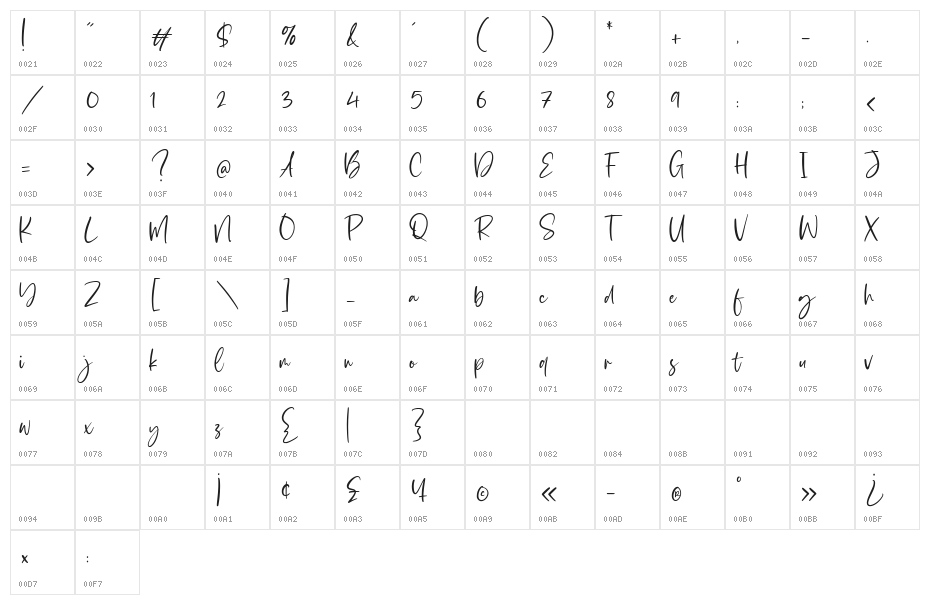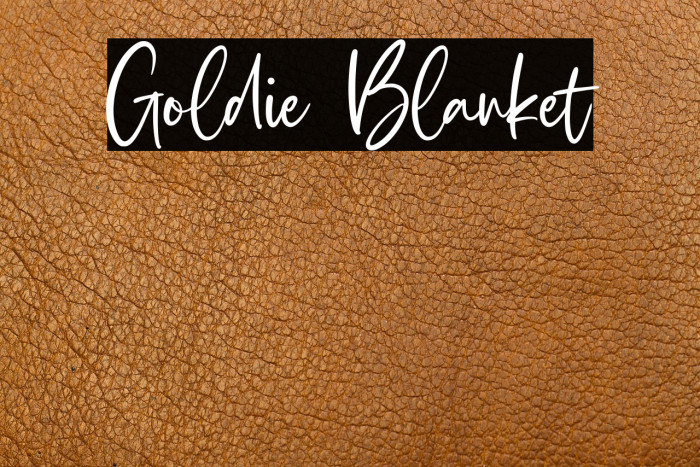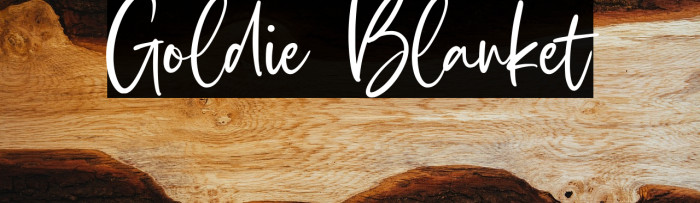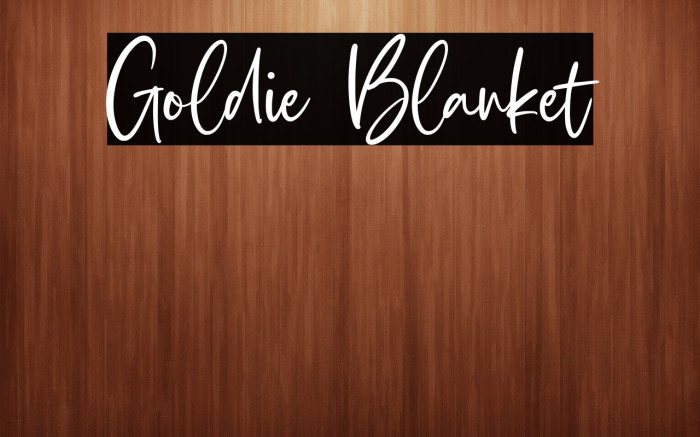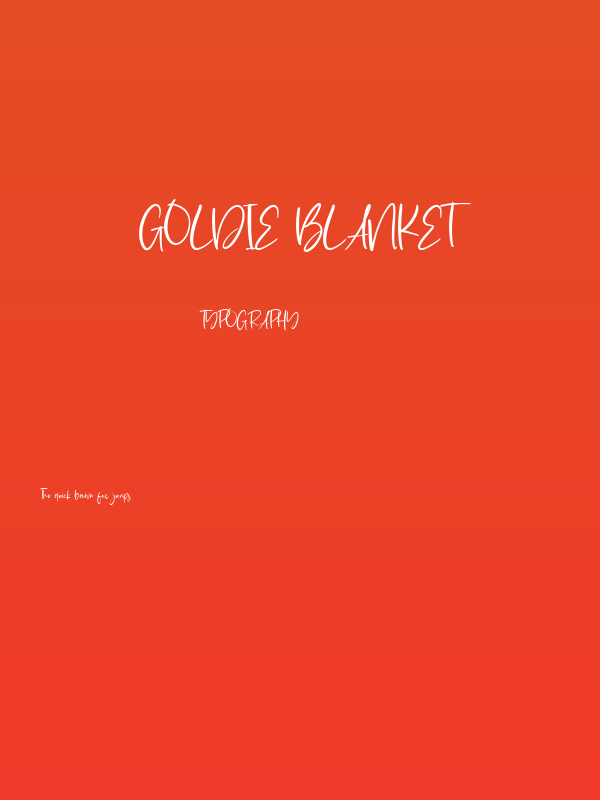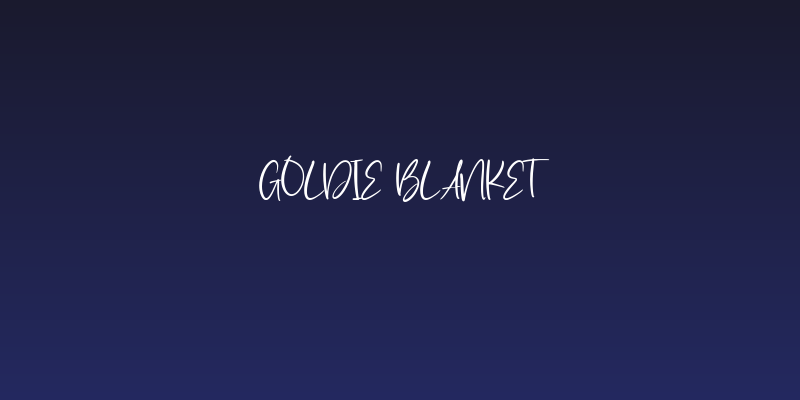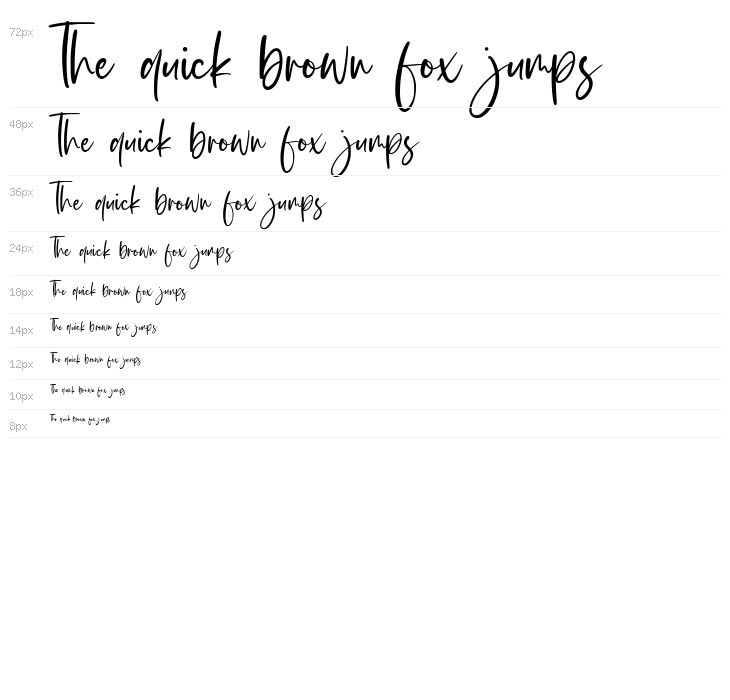
Goldie Blanket Font
Goldie Blanket Description
This font features a lively and expressive handwritten style, characterized by its fluid and dynamic strokes. The uppercase letters are bold and slightly slanted, giving a sense of movement and energy. The lowercase letters are more delicate, with a playful and whimsical touch. The numbers maintain the same energetic style, ensuring consistency throughout. Special characters are creatively integrated, adding to the font's overall charm. This font is perfect for projects that require a personal and artistic touch, such as invitations, greeting cards, and creative branding.
| Proposed Projects | Ideal for invitations, greeting cards, artistic branding, and creative projects. |